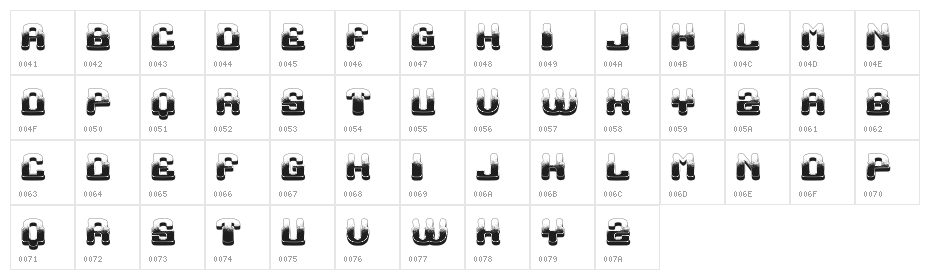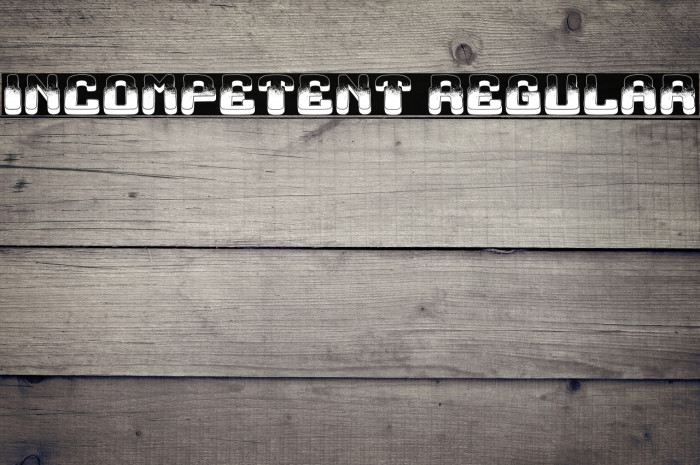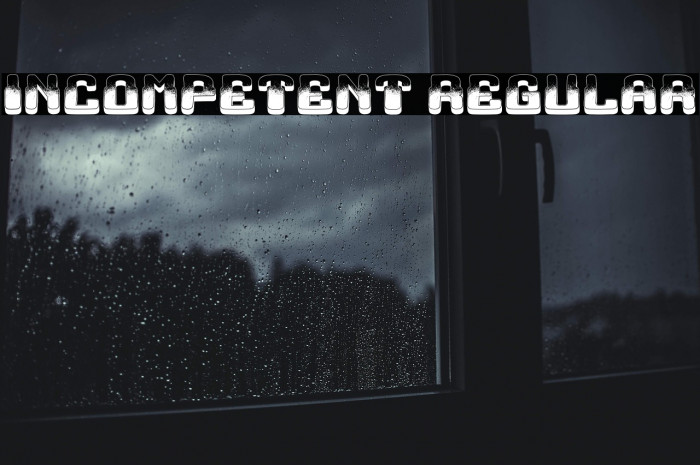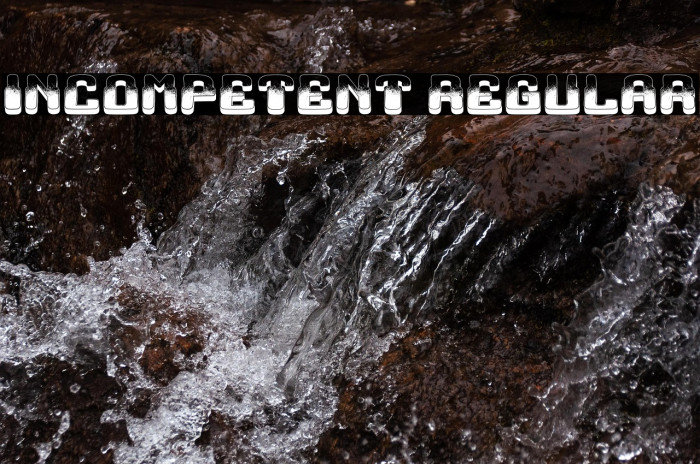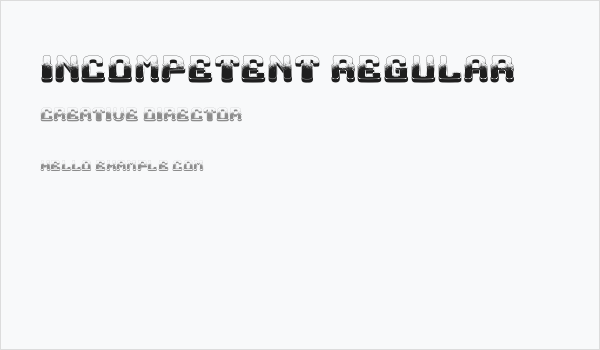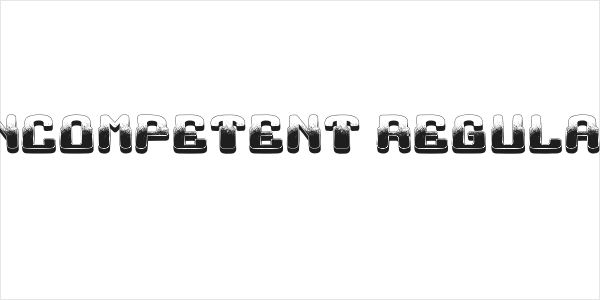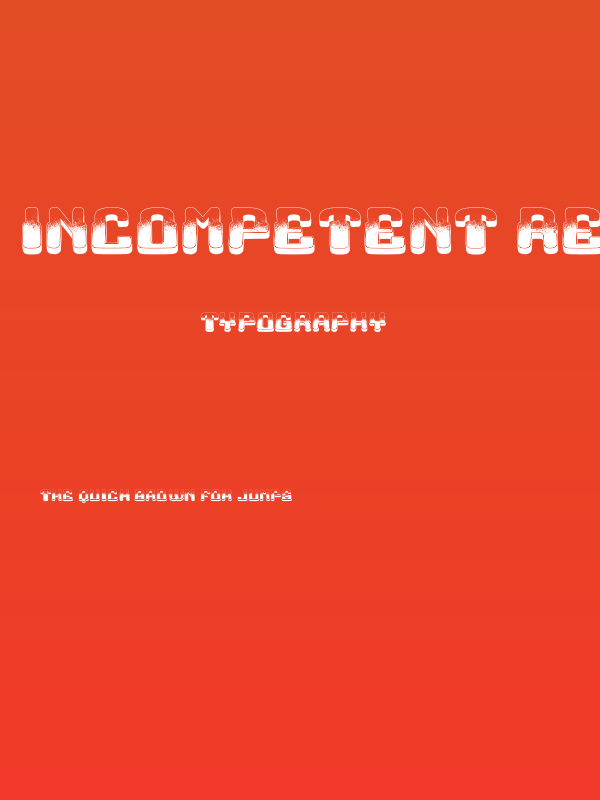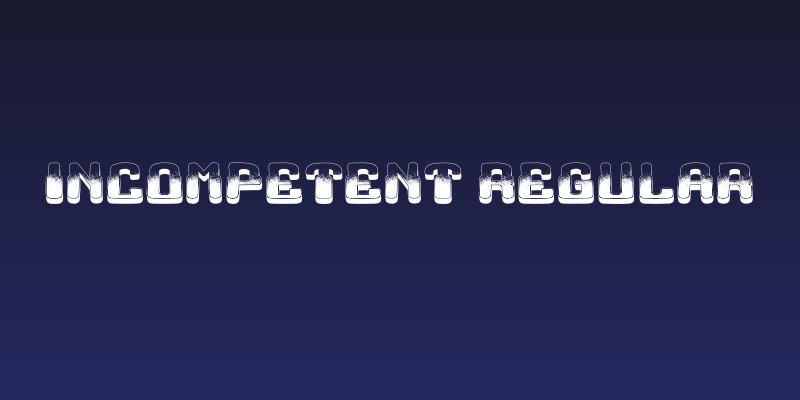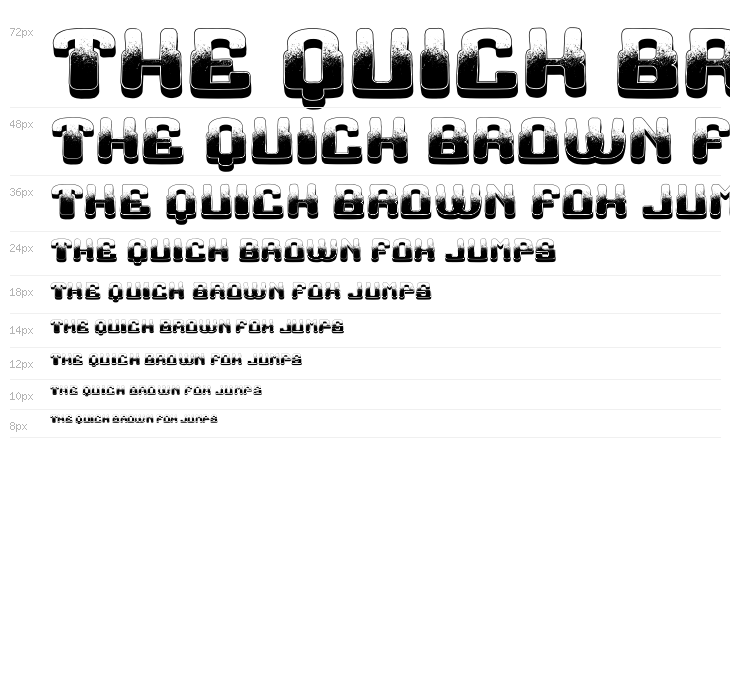
Incompetent Regular Font
Incompetent Regular Description
This font features a bold, three-dimensional design with a gradient effect that gives it a metallic and futuristic appearance. The characters are uniformly thick, with rounded edges that soften the overall look. The gradient transitions from dark at the top to light at the bottom, enhancing the 3D effect. This style is eye-catching and ideal for making a strong visual impact. The uppercase letters are consistent in height, and the spacing between characters is tight, contributing to a compact and cohesive appearance.
Overall StyleFuturistic
Use CaseHeadlines, Logos
Proposed ProjectsIdeal for futuristic designs, video game titles, technology branding, and sci-fi themed posters.